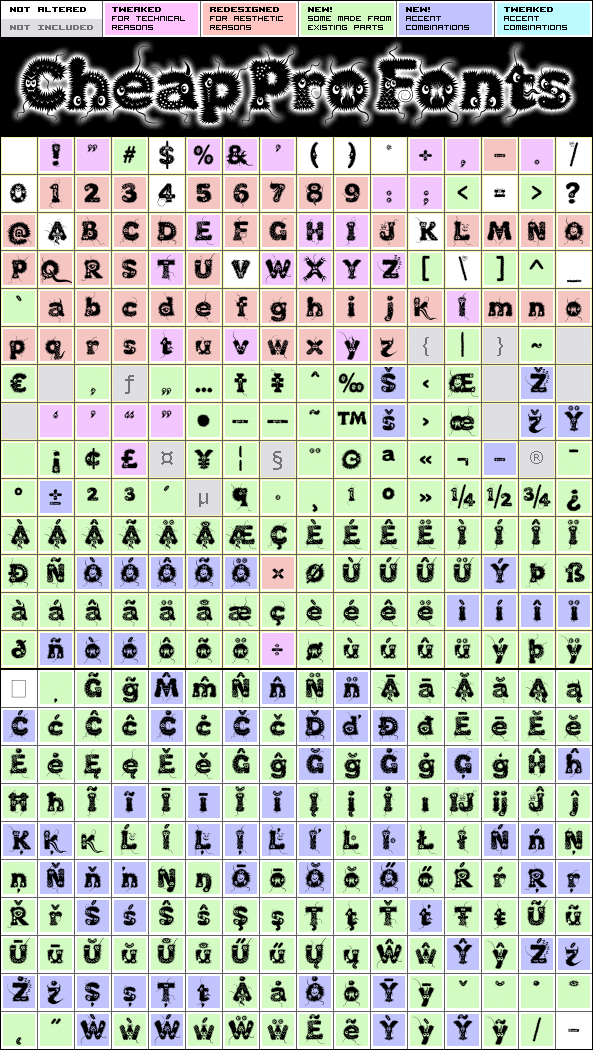
Kingthings Lupine Pro
Kingthings Lupine Pro by Kevin King
Kevin King
370 glyphs!
(92 in original)
492 class kernpairs
= 9382 kerning pairs
(5 in original)
I loved this monster font the second I saw it - it reminded me of Franquins "Idées Noires"... Reworking it and adding the missing glyphs and diacritics was quite time-consuming - but a lot of fun! Lots of details. Enjoy!
Kevin King says: "Did I say I can if I want to? Well I made this for a character in a Terry Pratchett Book - Reaper Man - He's called Lupine and is getting very fond of a girl called Ludmilla - Her mother is Mrs Cake... Don't ask about Mrs Cake. To help you not to ask about Mrs Cake, The clergy holds that speaking to the dead is blasphemy and abomination - Mrs Cake holds that it's only common courtesy. I digress - sorry. He's a werewolf, It's a hairy font. Do not call it Kingthings Pube."
Kingthings Lupine Pro is a professionally reworked font that contains an extended character set for setting text in 65 languages requiring more than the basic A-Z!